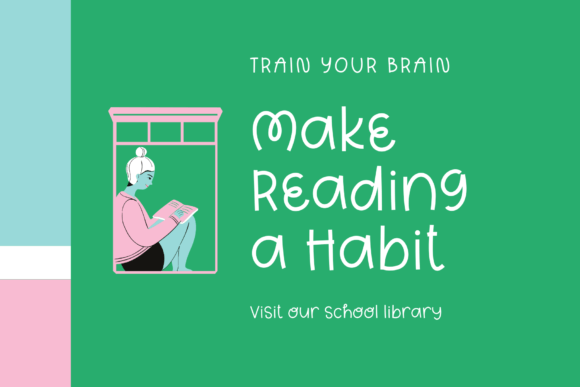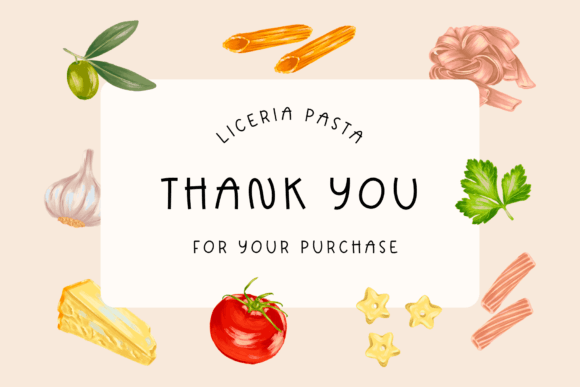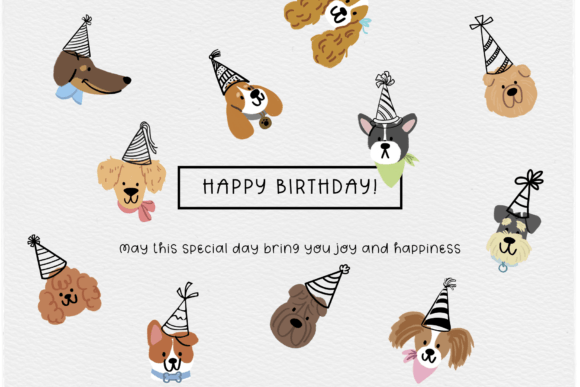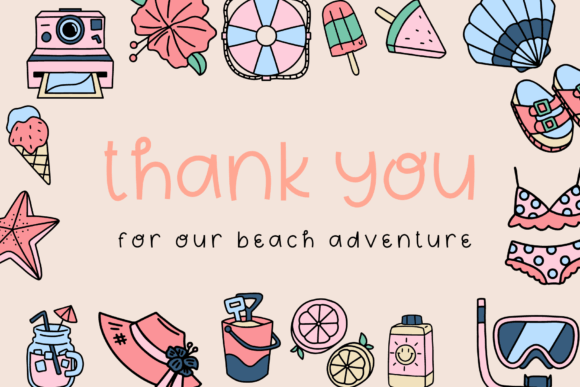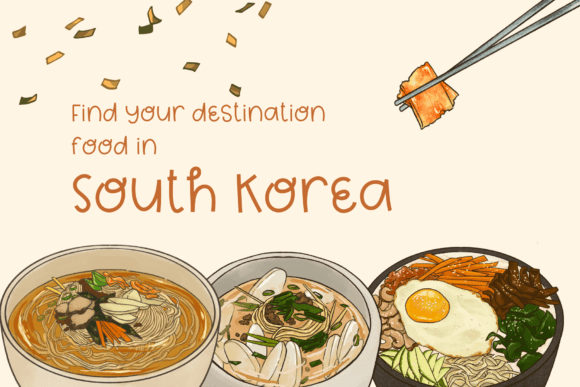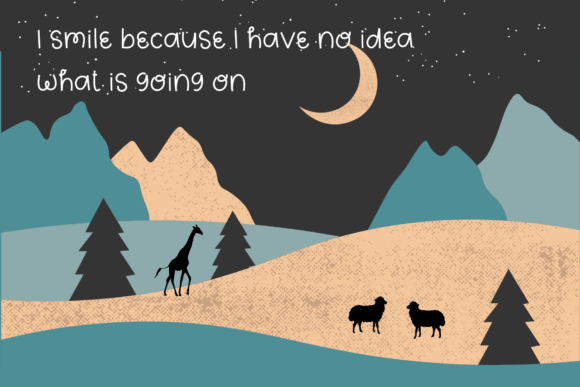
Introduction to Perky Wonder Font
Use Perky Wonder to create super cute logos, branding, notebooks, journals, labels, stickers, blogs, quotes, greeting cards, tea towels, apparel, pillows, mugs, toys, posters, baby clothing, picture books and so much more… basically, anything that requires a cute and fun look.
Use Perky Wonder to create super cute logos, branding, notebooks, journals, labels, stickers, blogs, quotes, greeting cards, tea towels, apparel, pillows, mugs, toys, posters, baby clothing, picture b
Key Features of Perky Wonder Font
Why Choose Perky Wonder Font?